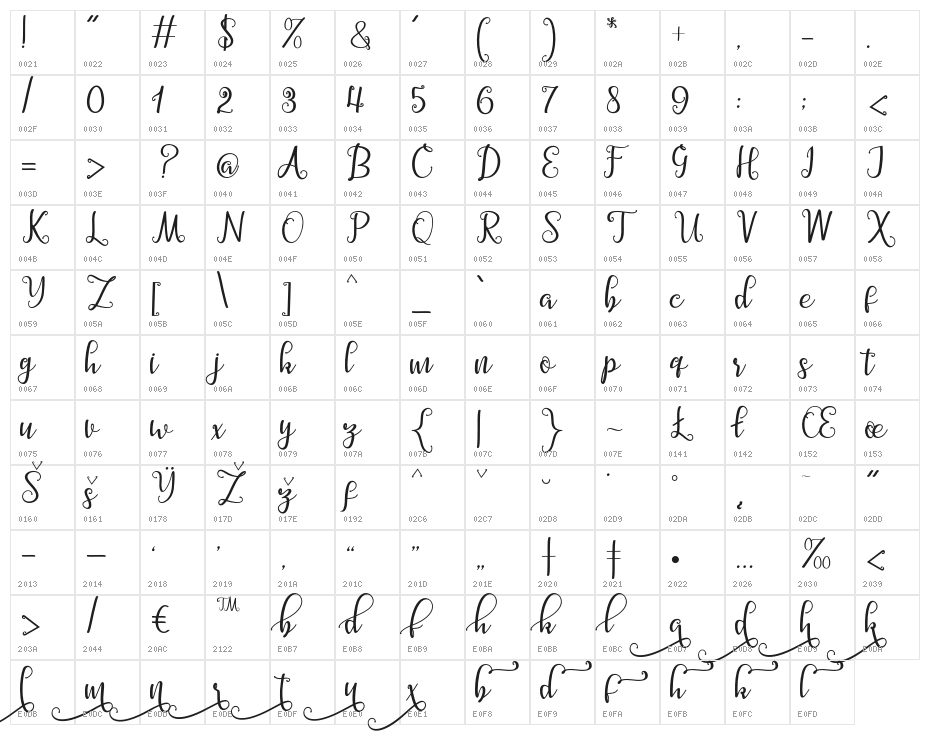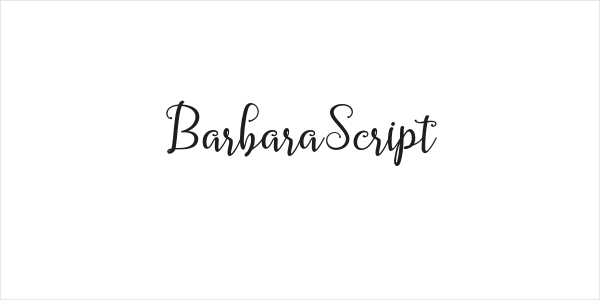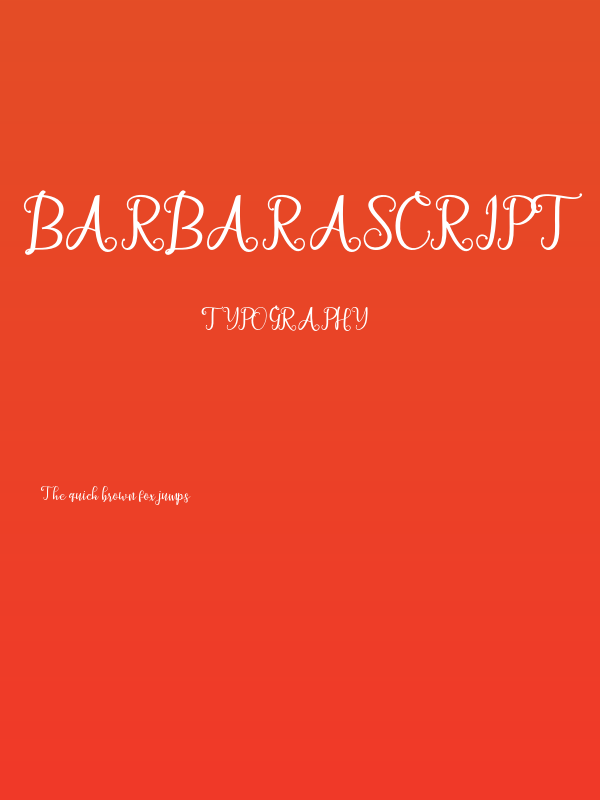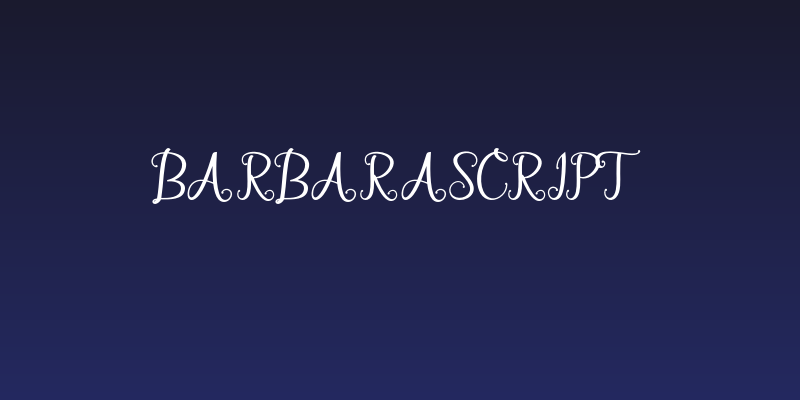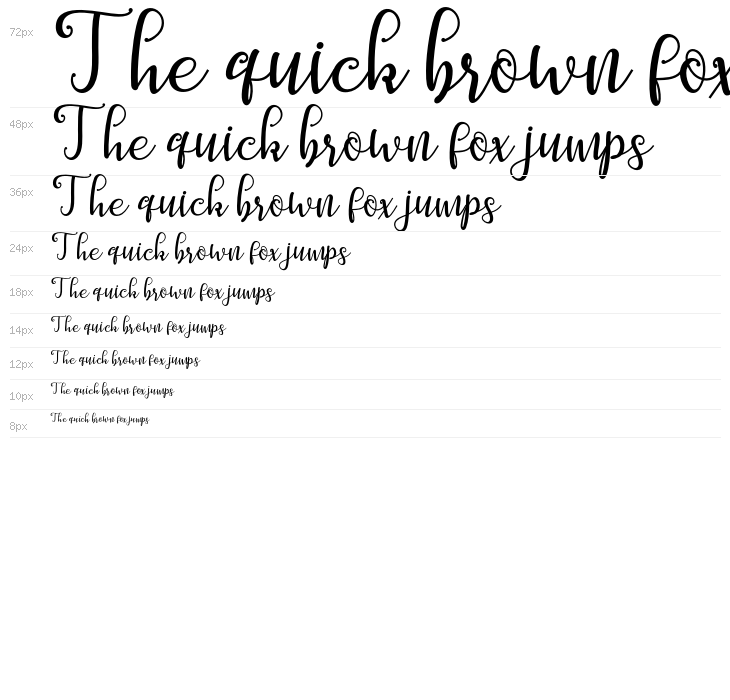
BarbaraScript Font
BarbaraScript Description
This font showcases a lively and elegant script style, characterized by its flowing, cursive letters with decorative swirls and loops. The uppercase letters are particularly ornate, with intricate embellishments that add a touch of sophistication. The lowercase letters maintain a smooth, connected appearance, enhancing the script's fluidity. Numbers and special characters are designed with similar flair, ensuring consistency across all glyphs. This font's playful yet refined nature makes it suitable for a variety of creative applications.